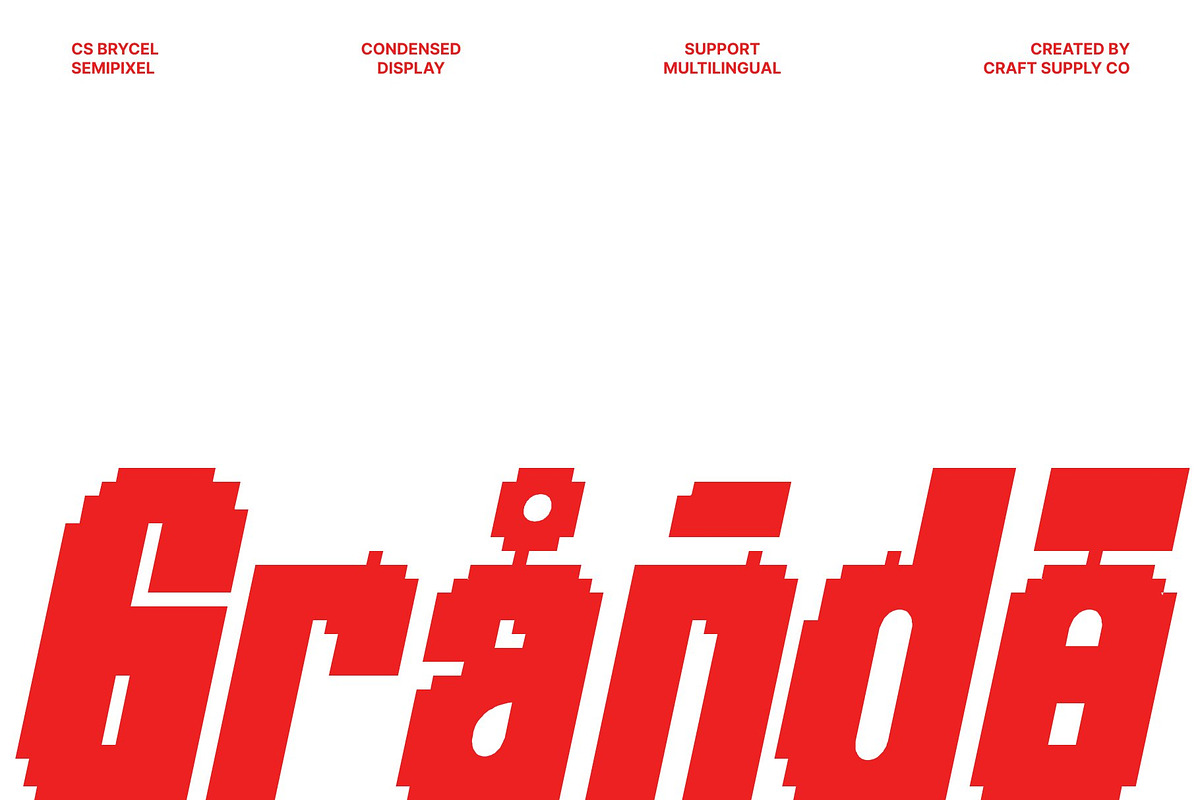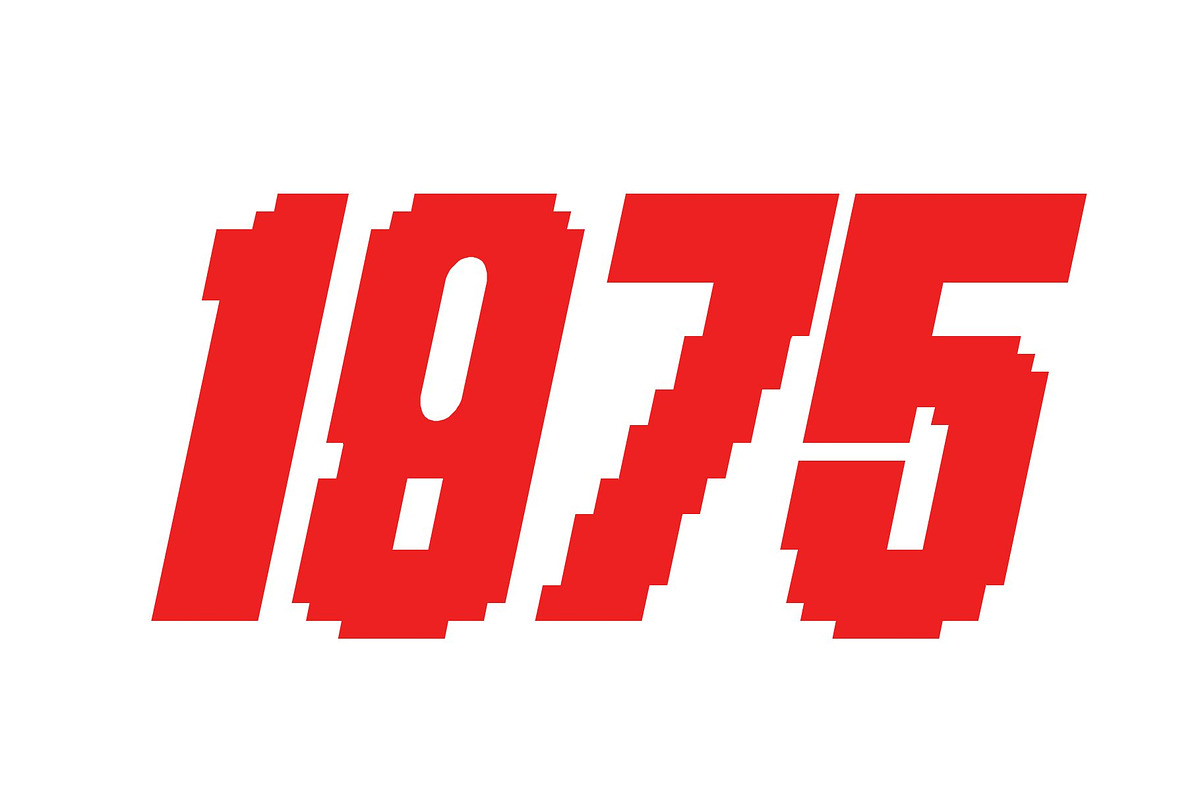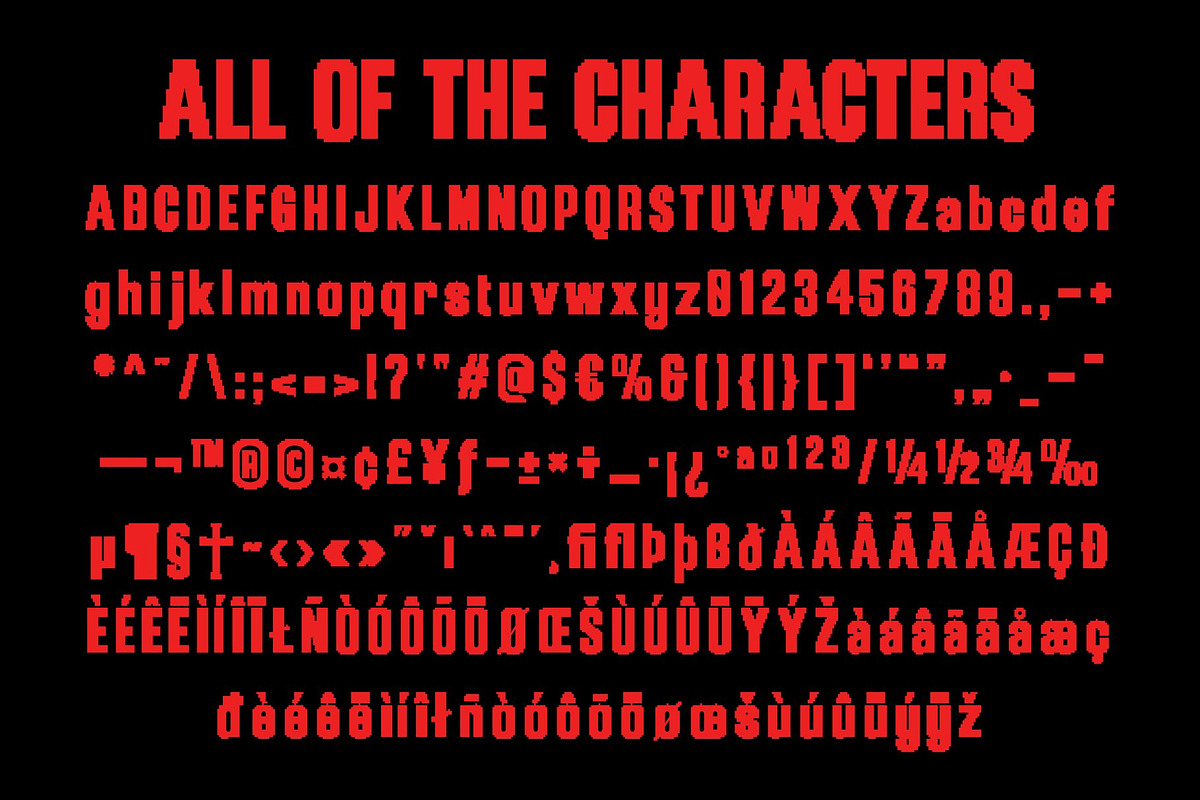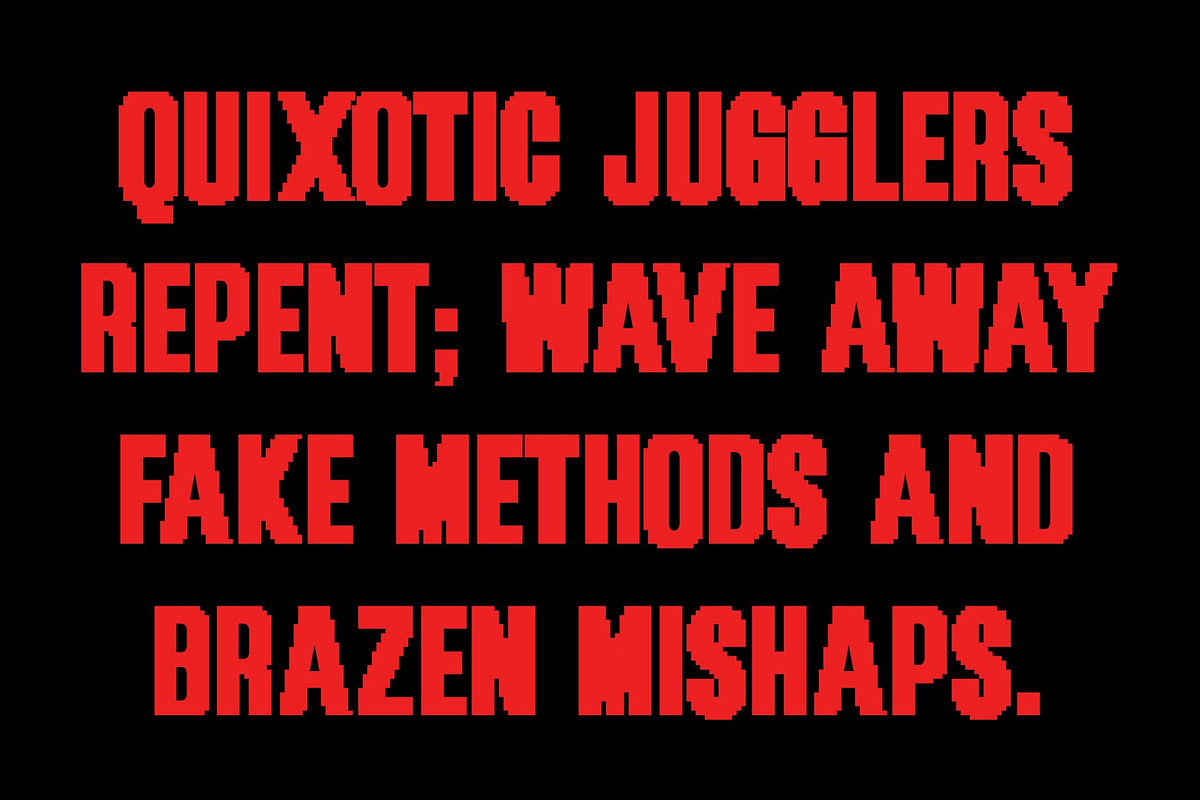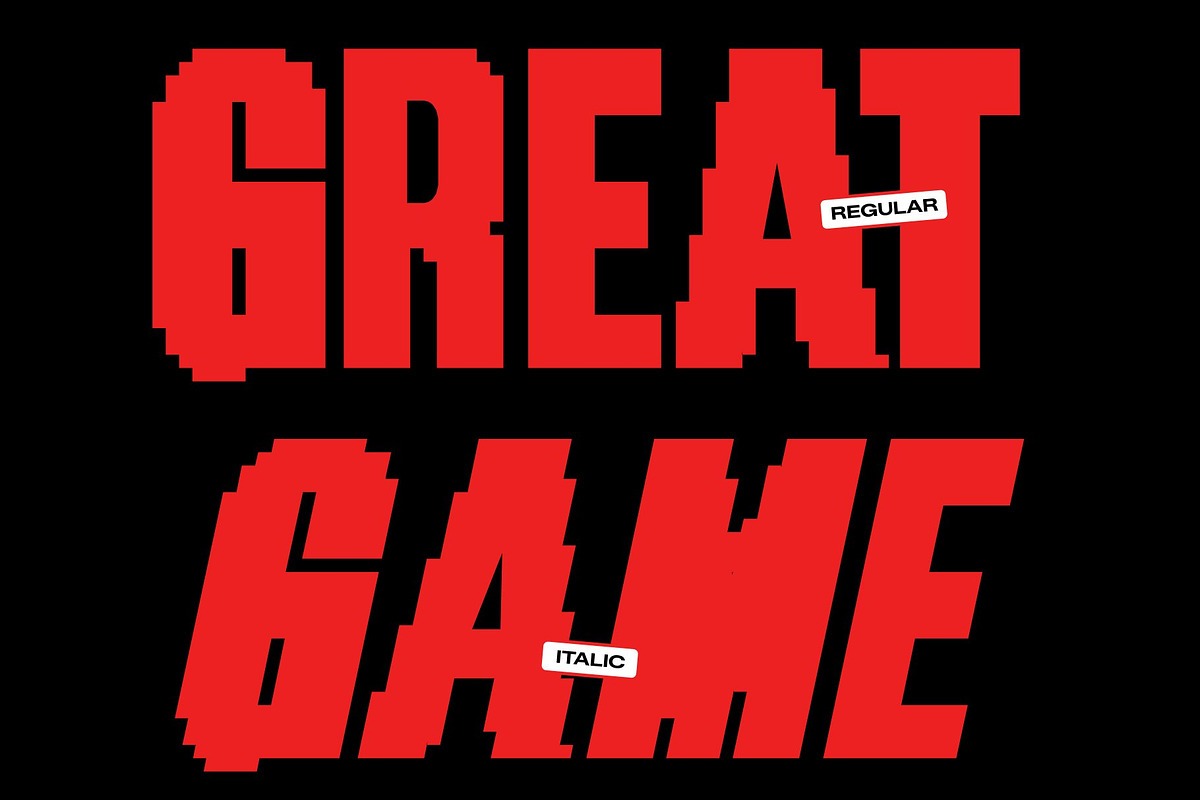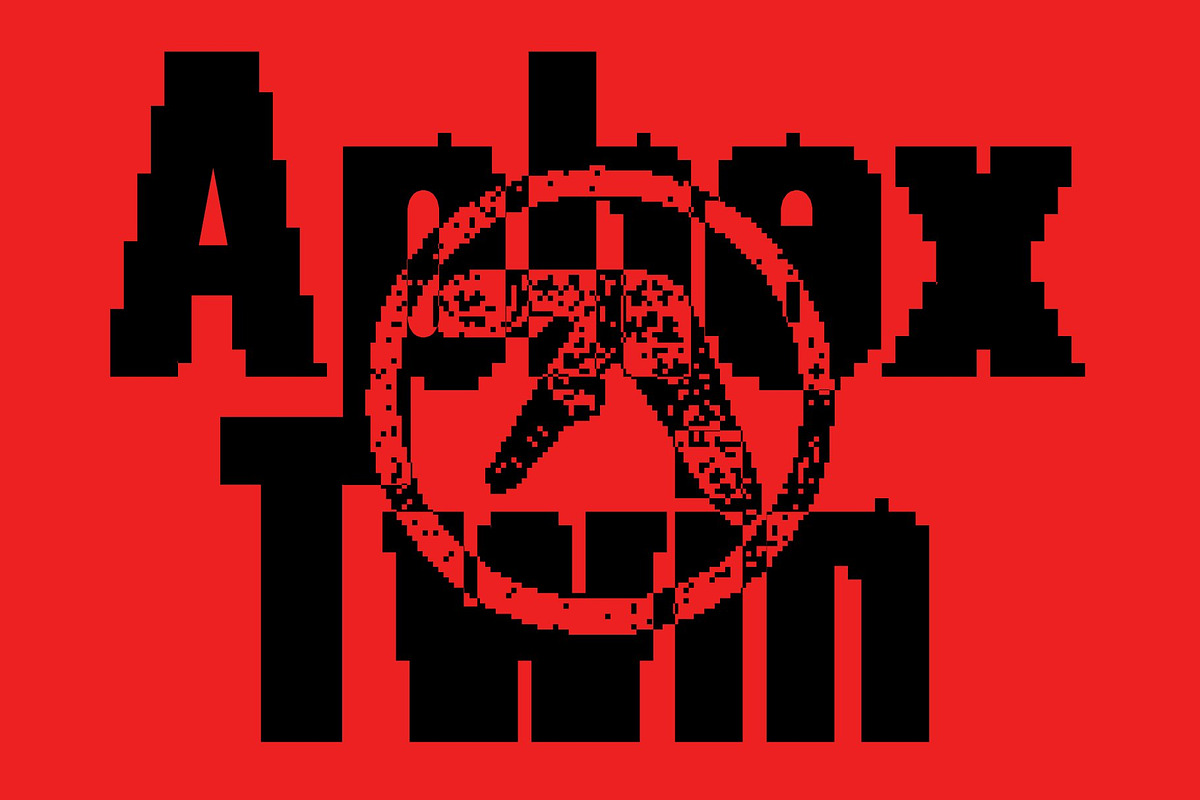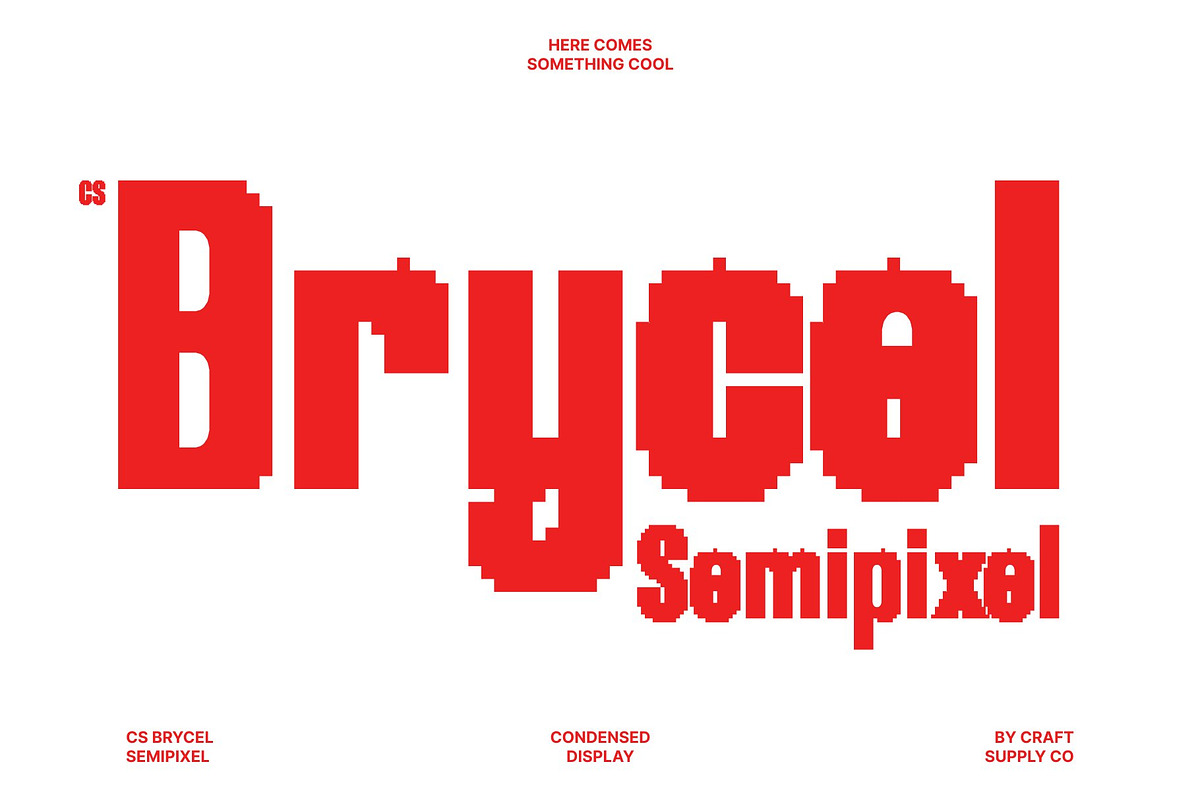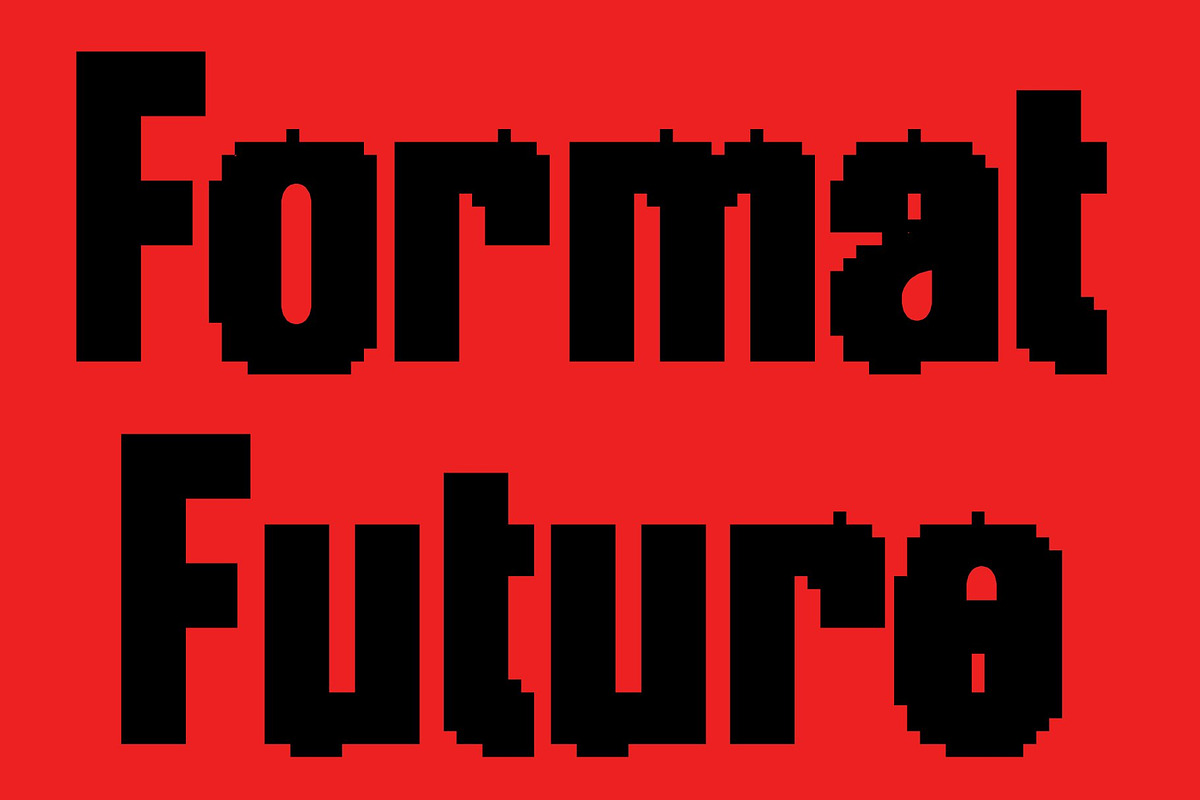
CS Brycel Semipixel
CS Brycel Semipixel – Condensed Display Sans Serif Font: Where Industrial Strength Meets Smooth Digital Precision
Compact Industrial Forms with Bold Technical Character This is a condensed display sans serif font designed with an industrial aesthetic that delivers a strong, masculine, and technical appearance. Its compact proportions and bold contemporary structure create a commanding visual identity filled with power, efficiency, and modern confidence. Every character is crafted to maximize impact while maintaining clarity, making the font perfect for bold display compositions and high-energy creative projects.
Semipixel Style with Smooth Futuristic Geometry This font combines pixel-inspired square forms with modern curves and refined details. Unlike traditional rigid pixel fonts, its smooth construction softens the geometric edges, creating a cleaner and more contemporary digital appearance. This balance between retro pixel aesthetics and sleek industrial typography gives the font a futuristic and visually dynamic personality.
Industrial Modernism with Digital Energy This font delivers a typographic identity that feels technological, rugged, and visually immersive. Its strong structure and smooth digital texture evoke futuristic machinery, gaming aesthetics, urban visuals, and contemporary tech branding, making it ideal for bold modern design concepts.
CS Brycel Semipixel Regular
CS Brycel Semipixel Italic